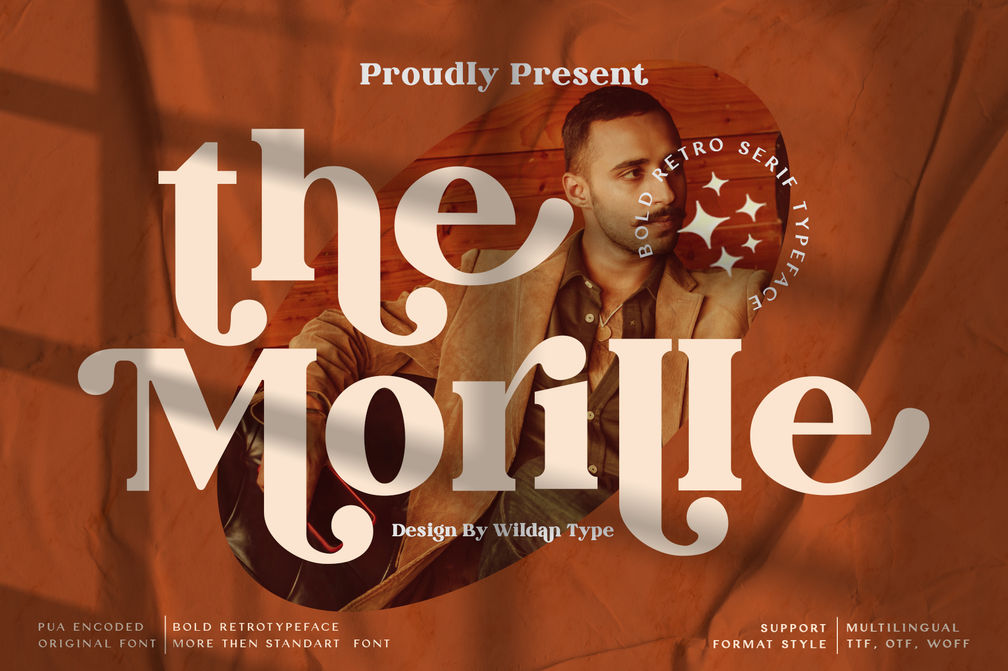
The Morille
The Morille is display bold serif typeface. The shape is classic and unique style. You can also get more elegant serif in alternate and ligature. With vintage fill It’s great for logotypes, wedding invitations, romantic cards, labels, packaging, spelling of names and others. Add to your most creative ideas and watch how they bring them to life!